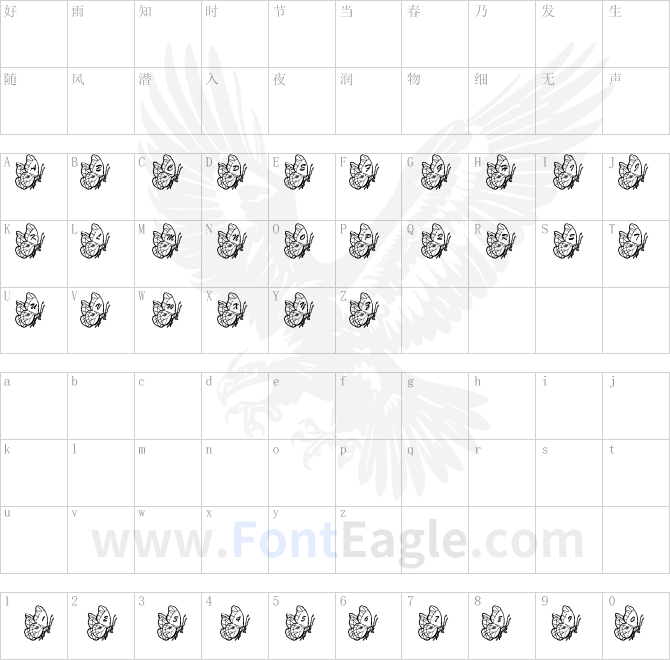
- Font name:LMS Beautiful Butterfly
- Font Subfamily ID:LMS Beautiful Butterfly
- Font Full Name:LMS Beautiful Butterfly
- Postscript:LMS Beautiful Butterfly